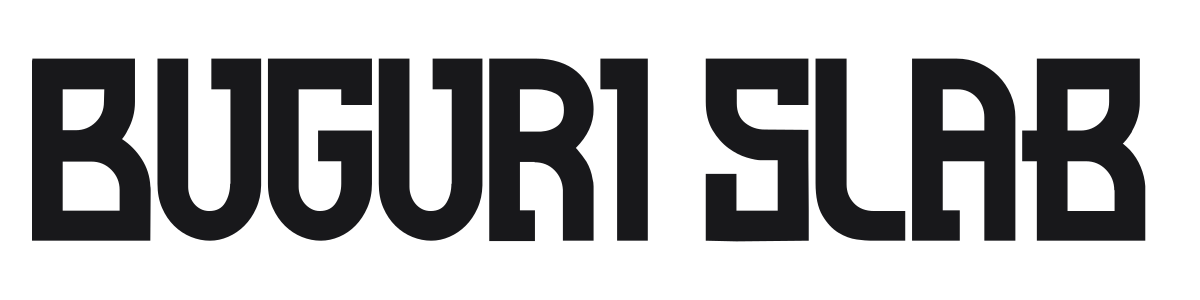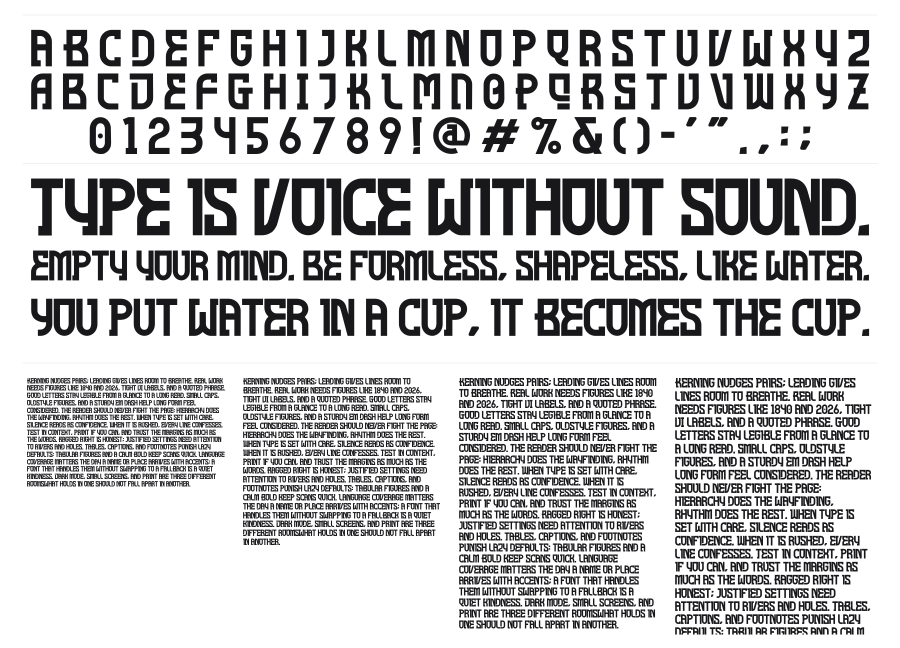
Buguri Slab
Buguri Slab is a heavy condensed slab-serif with a bold, block-like construction and thick rectangular serifs that fuse into the stems. The tight spacing and near-monoweight strokes give it an industrial density reminiscent of 1970s Soviet constructivism and retro-futurist graphic design. Best used large, where its compressed mass commands attention.